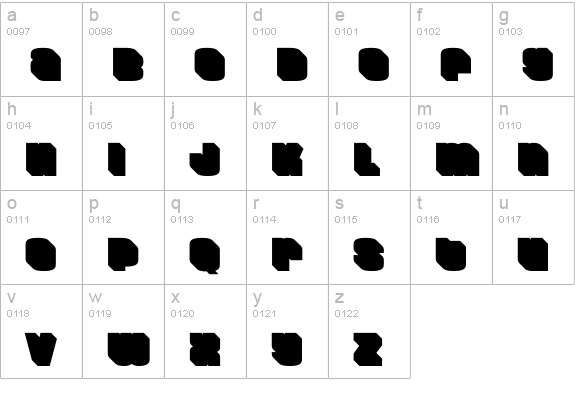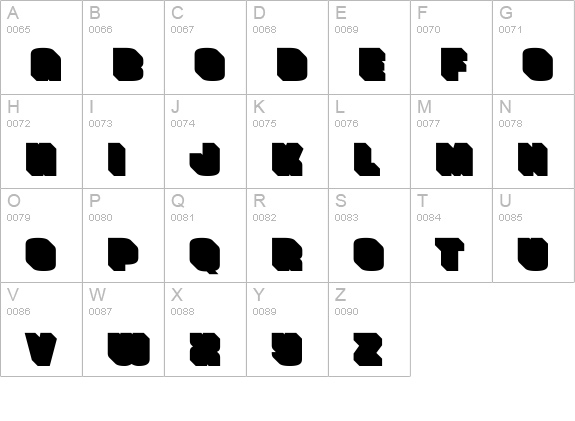
HouseGothicHG23Ext THRDSHA font is a striking and bold display typeface that exudes a sense of modernity and sophistication. Its sharp, angular edges and unique letterforms make it perfect for creating eye-catching headlines, posters, and branding materials. The font's distinctive design is sure to make your projects stand out and leave a lasting impression on viewers. What's even better is that HouseGothicHG23Ext THRDSHA font is available for free download at FontsMarket.com. This means you can easily access this stylish and versatile font to elevate your designs without any cost. So why wait? Download HouseGothicHG23Ext THRDSHA font today and unleash your creativity with this fantastic typeface!